Siberian Font
Siberian
Siberian is a geometric sans-serif typeface created by Oleg Macujev and published by omtype that is inspired by the cold weather of Siberia. You’ll find 7 stylistic alternates perfect for magazine, poster, logo, display etc.
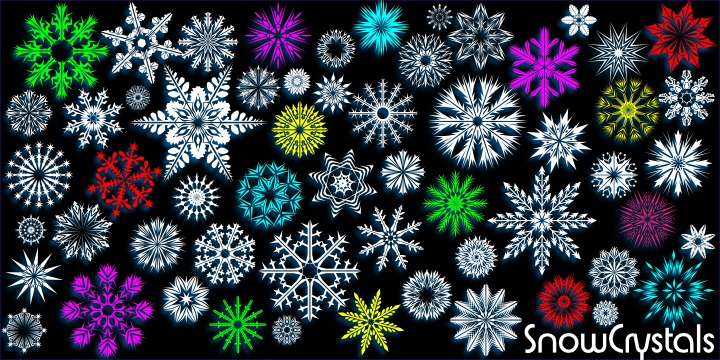White Christmas Font
White Christmas
Albion’s White Christmas is a typeface created by Paul James Lloyd and published by Greater Albion Typefounders. It is perfect for vintage Christmas cards, old magazines.
Snow Crystals Font
Snow Crystals
Snow Crystals is a typeface created by Denise Koehler and published by Deniart Systems. You will find 62 unique symbols (snowflakes, snowcrystals etc.) but for more informations you have a PDF guide.
Glitter Font
Glitter
Glitter is a typeface created & published by Aga Silva and this family font contain 6 fonts perfectly for your projects. Use layered for best results!